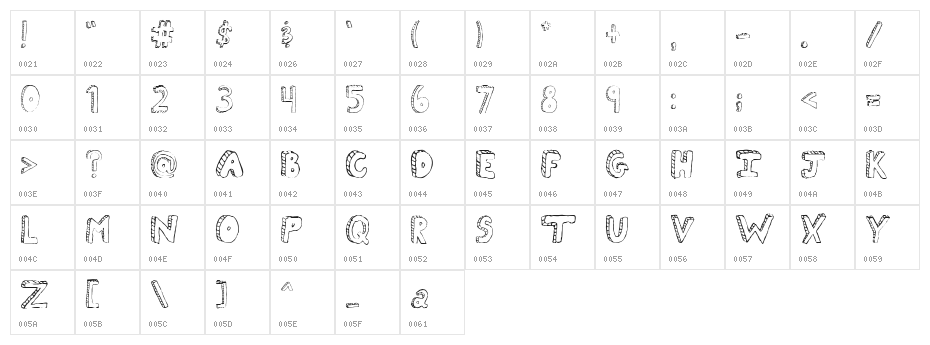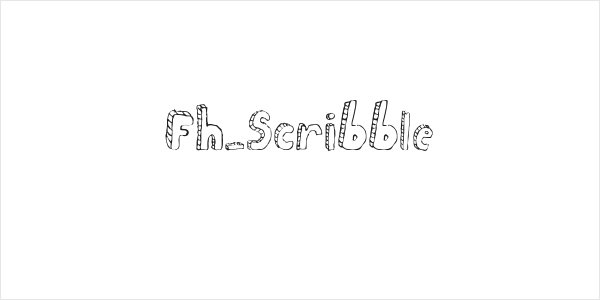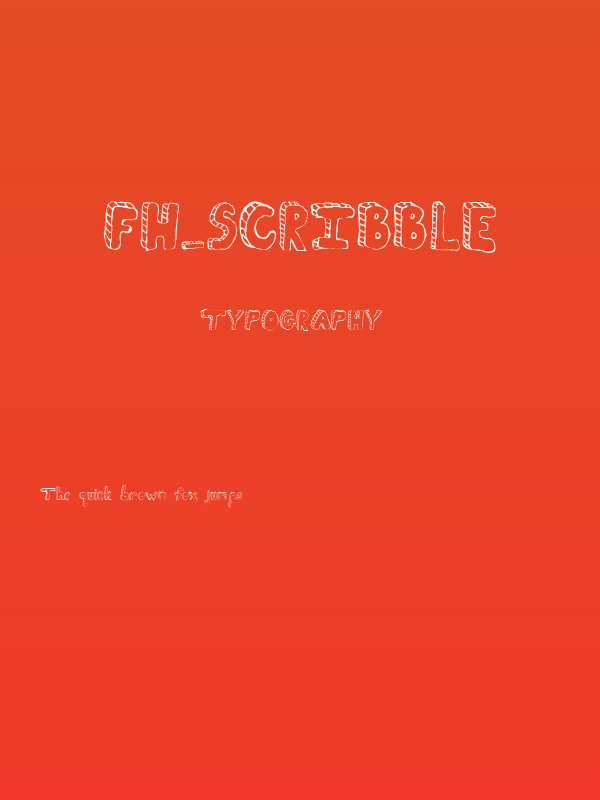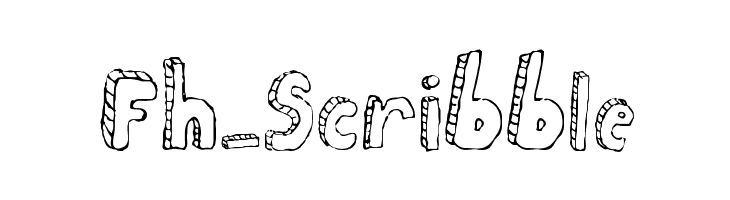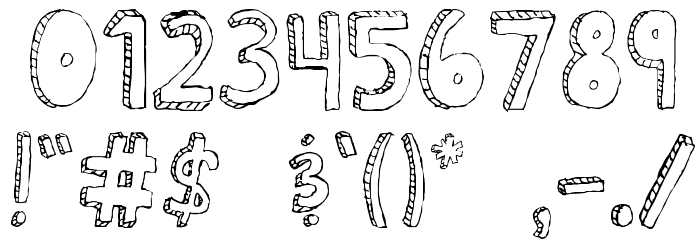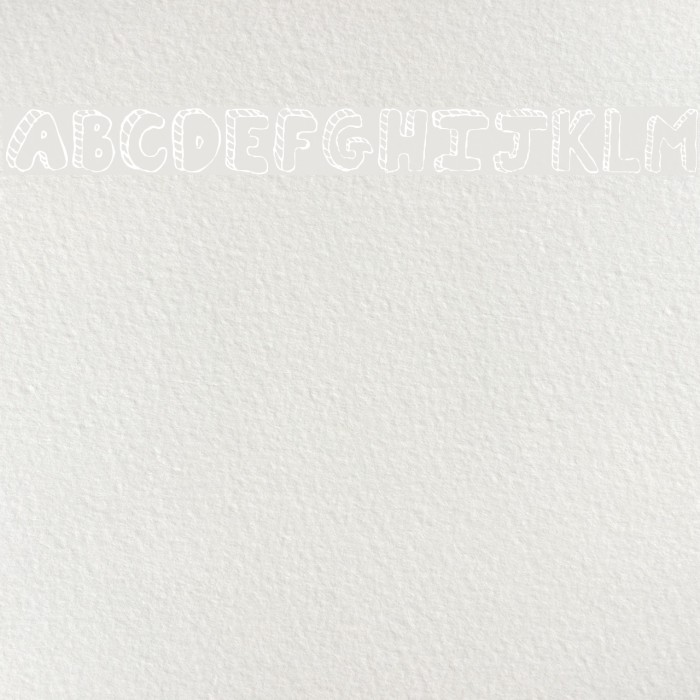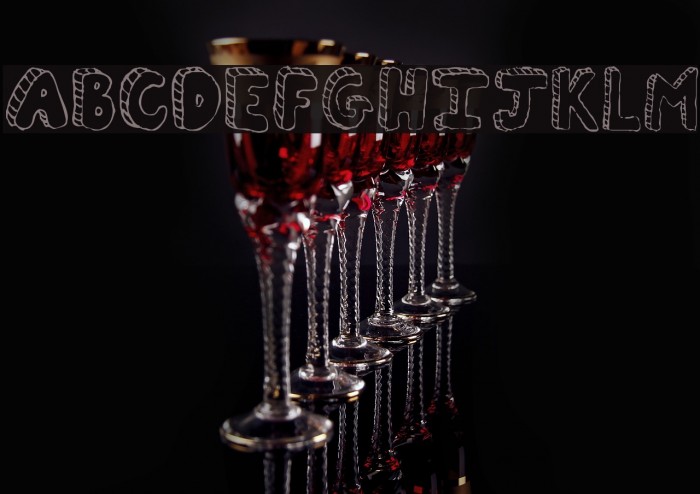
Fh_Scribble Font
Fh_Scribble Description
This playful and whimsical font features a hand-drawn, doodle-like style with a three-dimensional effect. Each character is outlined with a bold, sketchy line, giving it a textured appearance reminiscent of a child's scribble or a comic book style. The letters are slightly irregular in shape, adding to the casual and informal feel. The font includes both uppercase and lowercase letters, numbers, and a variety of special characters, all maintaining the same artistic, hand-crafted look. Its unique design makes it stand out, perfect for projects that require a fun and creative touch.
| Overall Style | Whimsical, Playful |
| Proposed Projects | Ideal for children's books, comic strips, playful branding, and creative posters. |